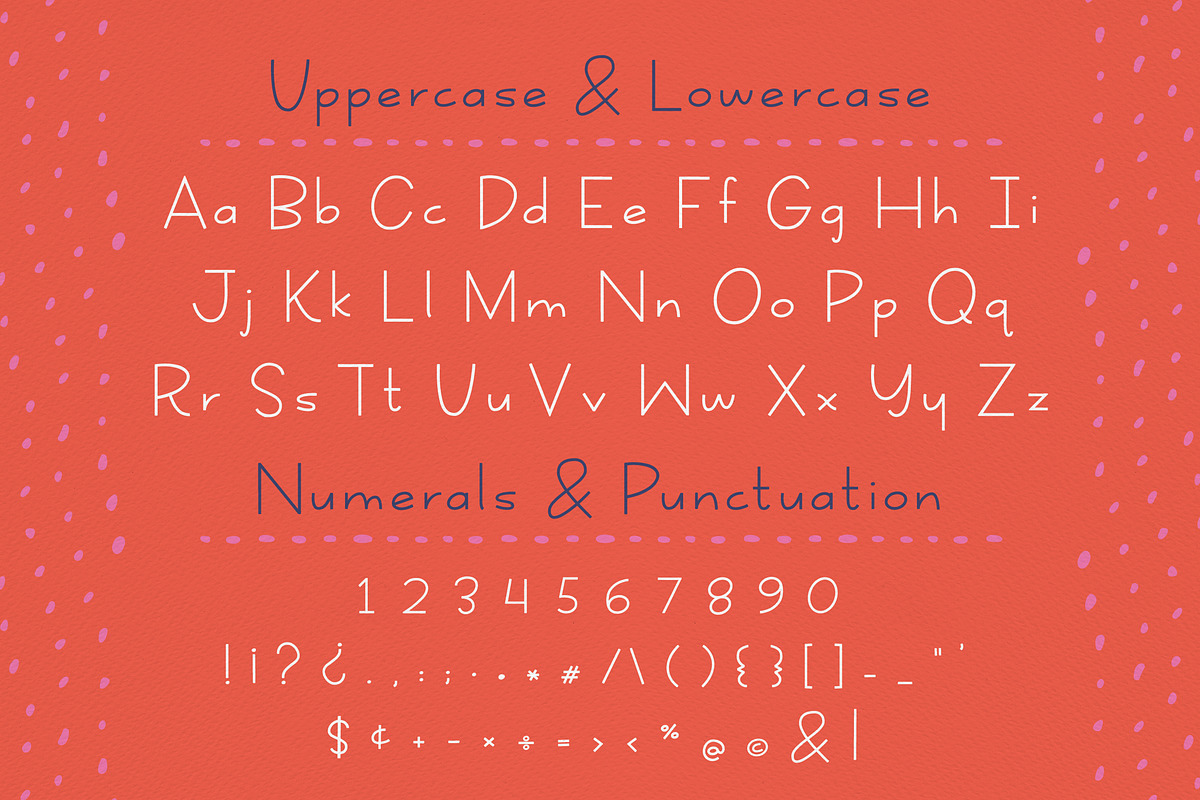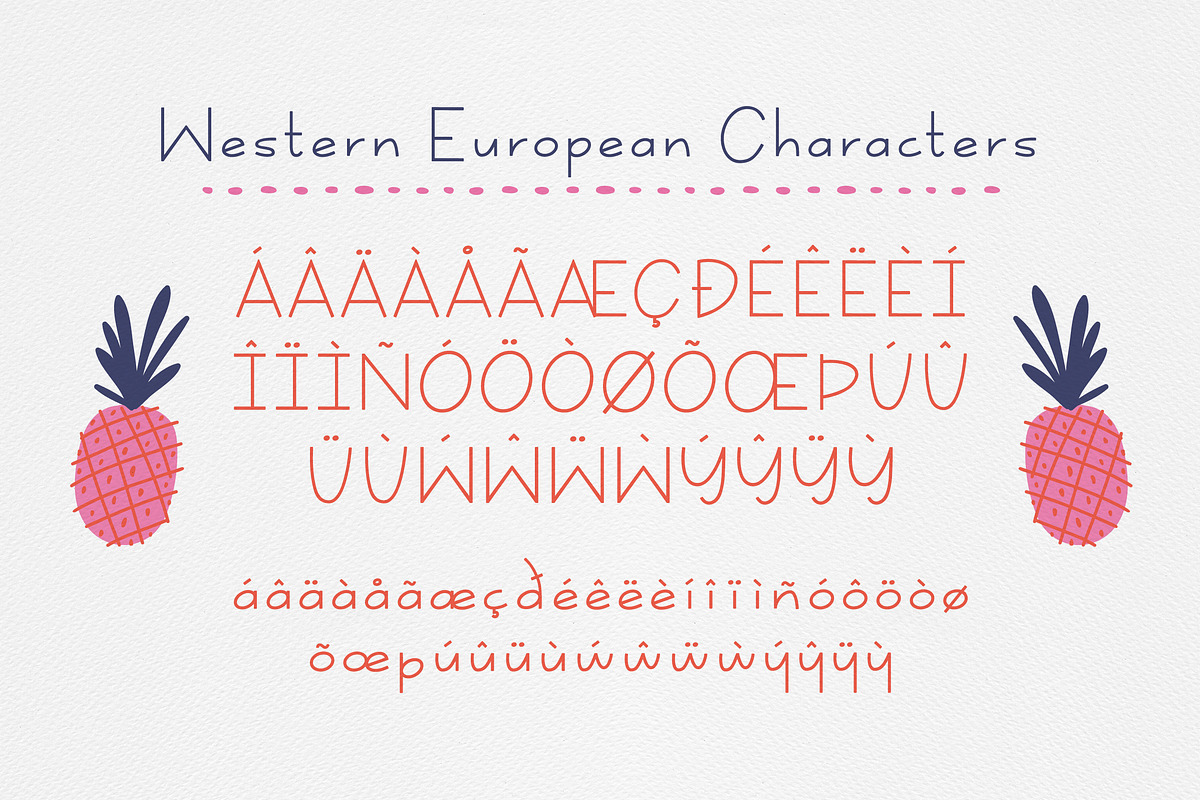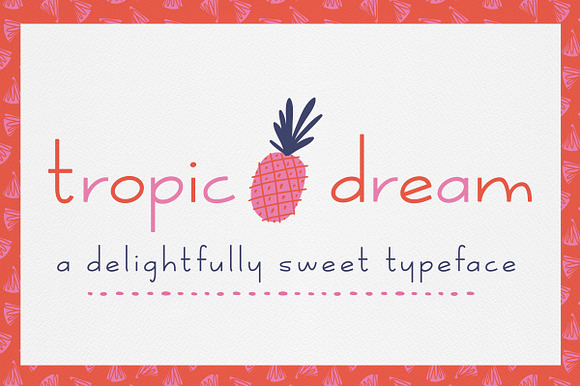
Tropic Dream Font
Introducing Tropic Dream, a clean, versatile and sweet monoline font that's great for all kinds of stationery, product descriptions, word art, cut files and more. Perfect for kids designs!